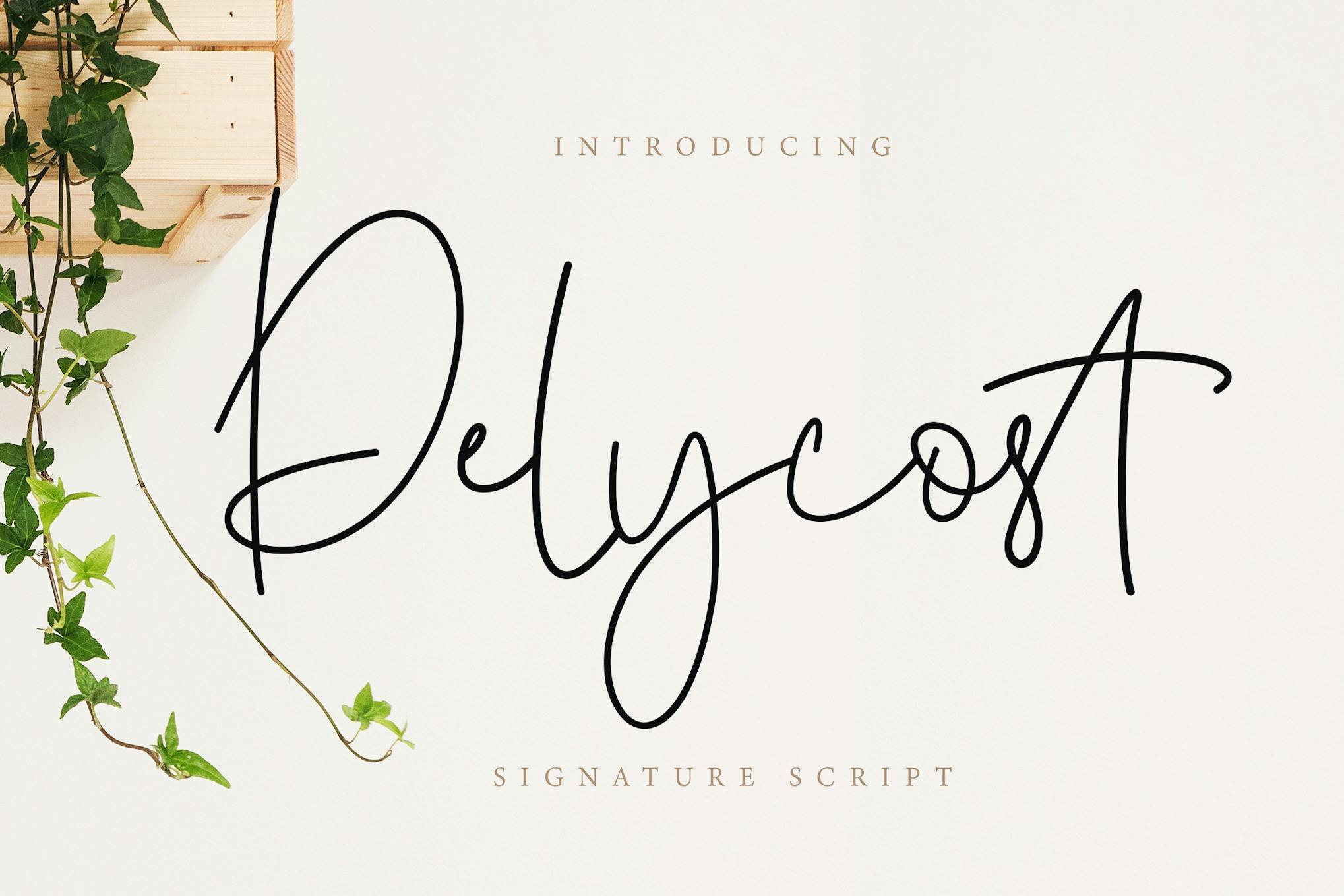
Delycost Signature Wedding Font
The Delycost Signature Wedding Font excels in delicate design applications including refined wedding invitations, delicate bridal branding, graceful ceremony logos, delicate product packaging, refined business cards, delicate portfolios, graceful greeting cards, delicate social media graphics, refined event signage, and delicate marketing materials. Its delicate script style makes it perfect for projects requiring refined elegance that communicates delicacy and establishes graceful brand positioning with audiences seeking delicate wedding experiences and refined sophistication.
What makes the Delycost Signature Wedding Font truly exciting is its exceptional ability to capture the delicate beauty and refined elegance of graceful weddings through delicately crafted letterforms. The font features flowing, delicate strokes with refined flourishes and graceful proportions that create a distinctly delicate appearance. Each character displays remarkable attention to refined detail with delicate curves, graceful connections, and refined spacing that give text a beautifully delicate, hand-lettered quality. The font's delicate character and refined rhythm create an atmosphere of graceful elegance while maintaining delicate sophistication and wedding authenticity.
The Delycost Signature Wedding Font family typically includes regular weight with extensive character coverage, featuring uppercase and lowercase letters, numerals, punctuation marks, and international characters. The typeface often incorporates stylistic alternates, contextual ligatures, and delicate swashes that enhance its signature refinement. These additional elements provide designers with creative flexibility to customize text appearance and achieve more natural-looking delicate handwriting that reflects the font's refined and graceful character.
This delicate signature font distinguishes itself through its remarkable balance of refined charm and sophisticated elegance. Unlike harsh or heavy fonts that lack delicate appeal, Delycost Signature Wedding Font embraces the power of refined design to create delicate connections with graceful wedding audiences. The font's delicate character makes it essential for refined wedding planners, delicate brands, and graceful celebration businesses where creating delicate wedding experiences and refined memories is fundamental to success in graceful wedding markets.